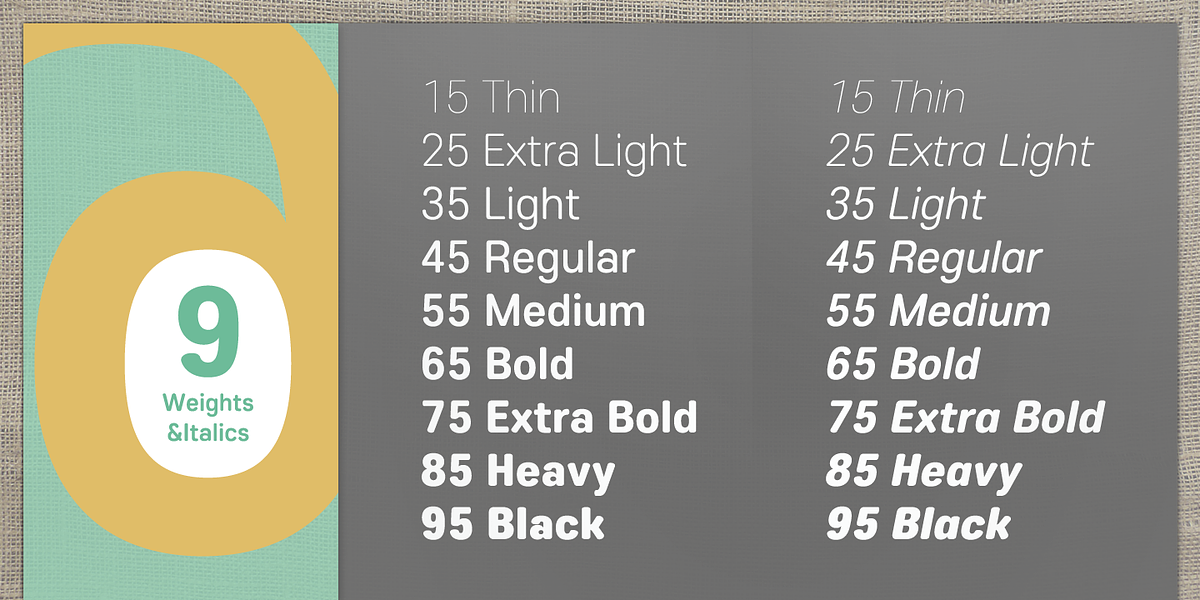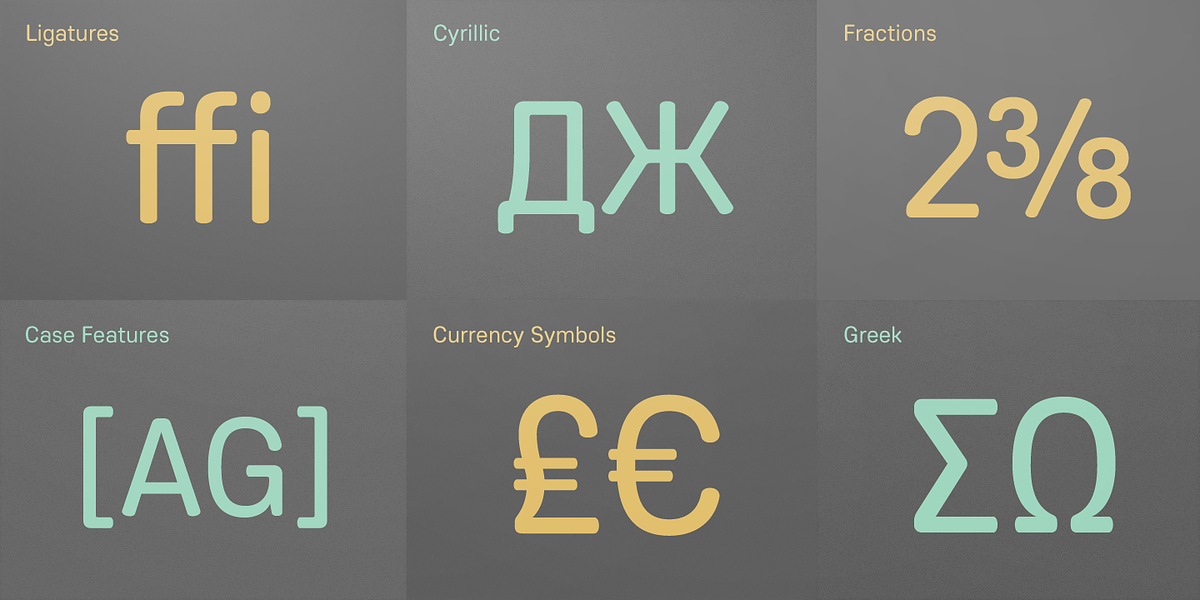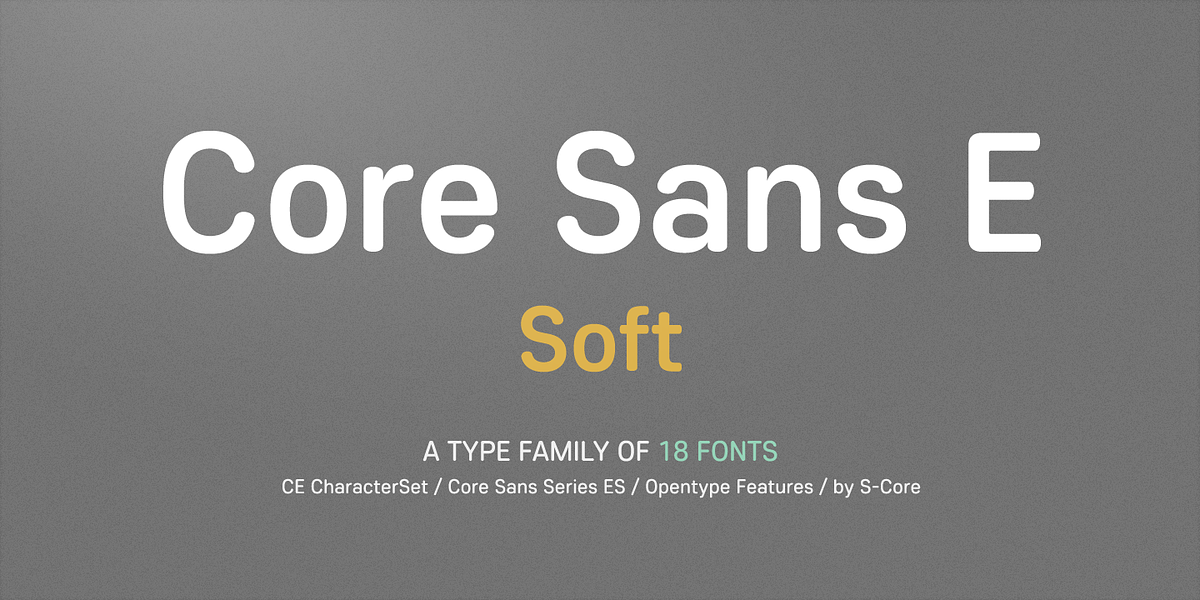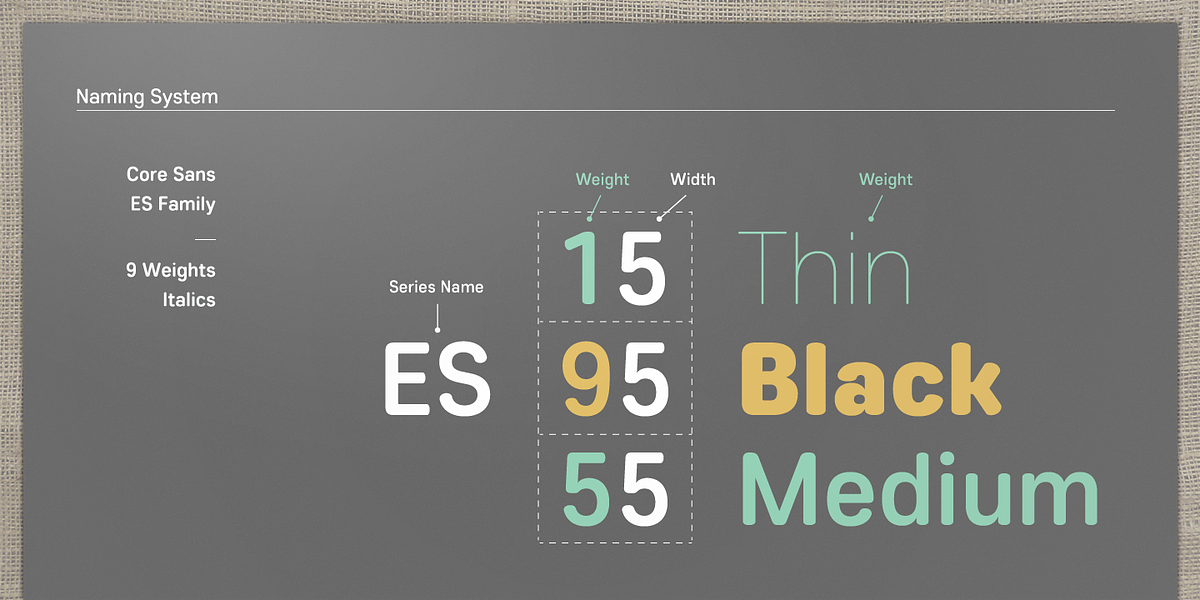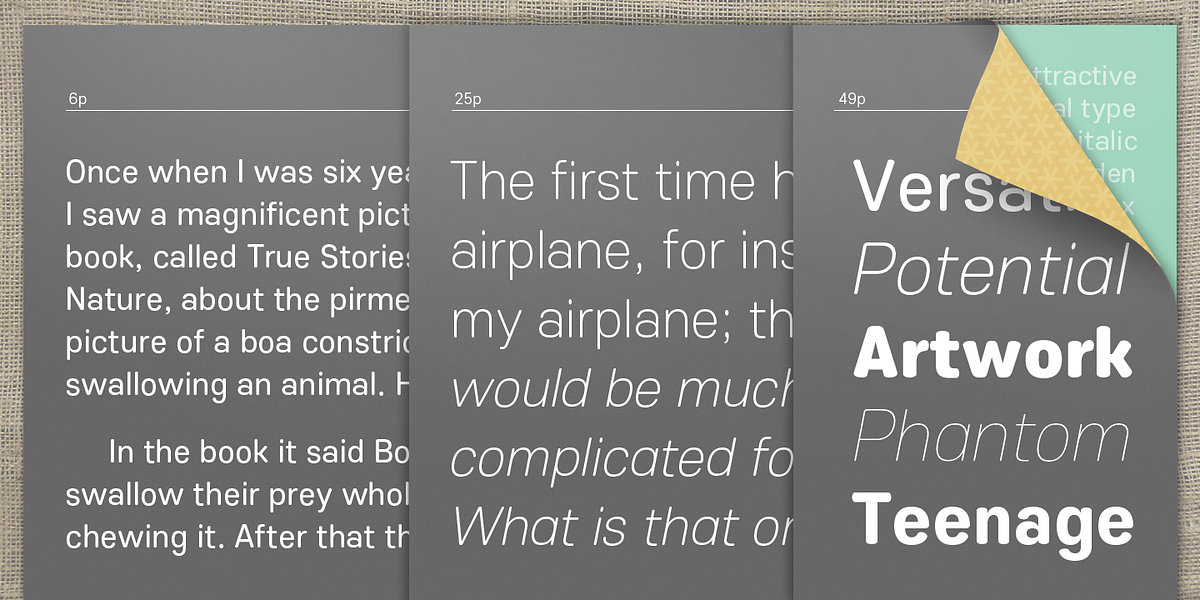
Core Sans ES
The Core Sans ES Family is a modern take on the classic grotesque sans serif style. Its defining characteristic is the rounded quality of its letterforms, lending it a softer and more contemporary feel than traditional geometric sans serifs. The font features a tall x-height for enhanced legibility and carefully adjusted spacing for optimal typesetting. It comes in a comprehensive range of weights, from Thin to Black, with italics available for each weight.